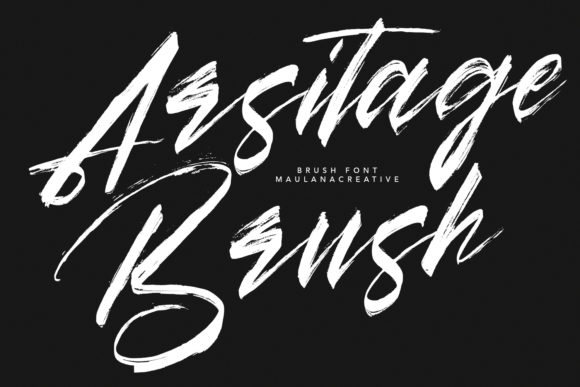
The Arsitage Brush Font: A Designer’s Dream Come True
I’ll never forget the moment I stumbled upon the Arsitage Brush font. I was working on a wedding invitation project for a client, and I was struggling to find the perfect font to capture the elegant, yet playful vibe she wanted. As soon as I saw Arsitage Brush, I knew I had found “the one.” Its flowing, handwritten style and incredibly versatile look had me hooked. In this article, I’ll share my love for this beautiful font, its features, and how to make the most of it in your designs.
• 💕 Incredibly versatile style suitable for various design projects, from wedding invitations to social media posts
• ✅ Beautifully crafted with a brush pen, giving it a unique, handmade feel
• 🎨 Highly legible, even at smaller font sizes
• 🌈 Wide range of applications, including stationery, branding, and more
A Few Quirks to Keep in Mind 🤔
• ⚠️ Some users may find the font a bit too “connected” for certain design projects, such as headings or titles
• ⚠️ Limited availability of certain OpenType features in certain software or platforms
A Practical Guide: Using Arsitage Brush in Your Designs
The Story Behind Arsitage Brush
Arsitage Brush was designed with the help of a brush pen, giving it a unique, handmade feel. The designer aimed to create a font that would be both elegant and versatile, suitable for a wide range of design projects. With its beautiful, flowing script and highly legible letters, Arsitage Brush has become a favorite among designers and crafters alike.
Is Arsitage Brush suitable for body text? While Arsitage Brush is highly legible, it’s best suited for headings, titles, and short paragraphs. For longer body text, you may want to choose a more traditional font.